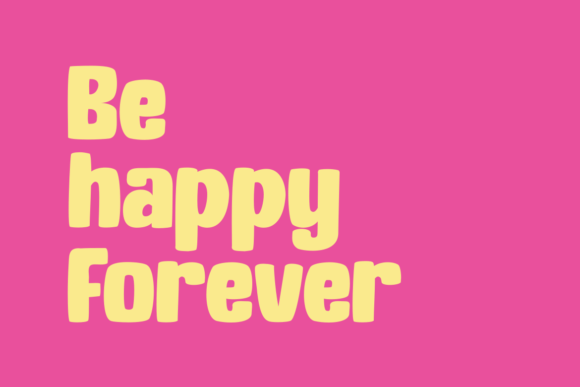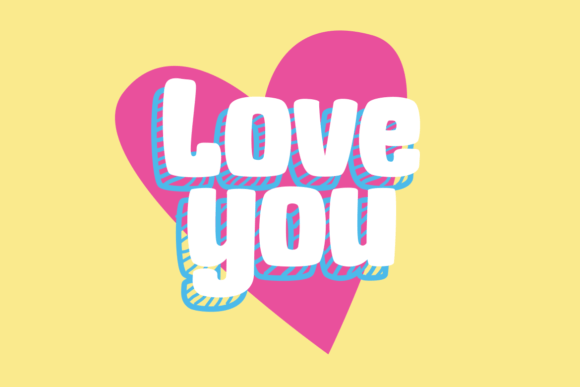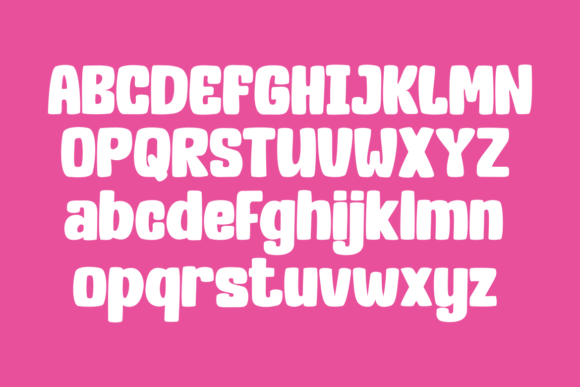
Introduction to Saget Nampi Font
As a designer, you’ve probably found yourself in the middle of a creative project, staring at a blank page, trying to bring a playful idea to life. The perfect font can make all the difference, transporting your audience to a world of imagination and wonder. For children-related projects, storybook covers, or kindergarten designs, you need a font that’s not only charming but also youthful and energetic.
That’s where the Saget Nampi Font comes in – a delightful display font that’s sure to capture the hearts of your young audience. With its chubby and playful characteristics, this font is a design resource that’s hard to resist. Whether you’re working on a free download or a high-quality print project, Saget Nampi Font offers a transparent background that’s perfect for creating eye-catching visuals.
Key Features of Saget Nampi Font
- High-quality design resource with a unique and creative style, perfect for various projects
- Transparent background, allowing for seamless integration with other design elements
- Supports a wide range of languages, making it a versatile design resource
- Includes a variety of font styles and weights, providing designers with ample options for creative projects
- High-resolution design, suitable for both digital and print applications
Honest Review: Saget Nampi Font
I recently had the opportunity to work with the Saget Nampi Font, and I must say it’s been a game-changer for my creative project. The high quality of the font has taken my designs to the next level, and I’m loving the versatility it offers.
Overall, I’m really impressed with the Saget Nampi Font. It’s a fantastic design resource that’s sure to elevate your creative projects. With a few tweaks to address the limitations, it could easily become a go-to font for designers everywhere.
Key features:
- High-quality font design
- Customizable style
How to Use Saget Nampi Font
Using Saget Nampi Font in Creative Projects
Saget Nampi Font can be used in a variety of creative projects, including graphic design, digital art, and even web design. Its unique style and transparent background make it an ideal choice for designers looking to add a touch of elegance to their work.
Tips for Getting the Most Out of Saget Nampi Font
To get the most out of the Saget Nampi Font, try experimenting with different font sizes, colors, and combinations to achieve a unique look. You can also use the font’s transparent background to create a sense of depth and dimension in your designs.
The Saget Nampi Font is ideal for a range of applications, including:
- Wedding invitations and stationery.
- Business cards and marketing materials.
- Web design and digital art.
Alternatives to Saget Nampi Font
Comic Sans MS is a fun and casual font perfect for creative projects requiring a lighthearted tone. It’s ideal for social media graphics, flyers, and other design resources where a playful atmosphere is desired.